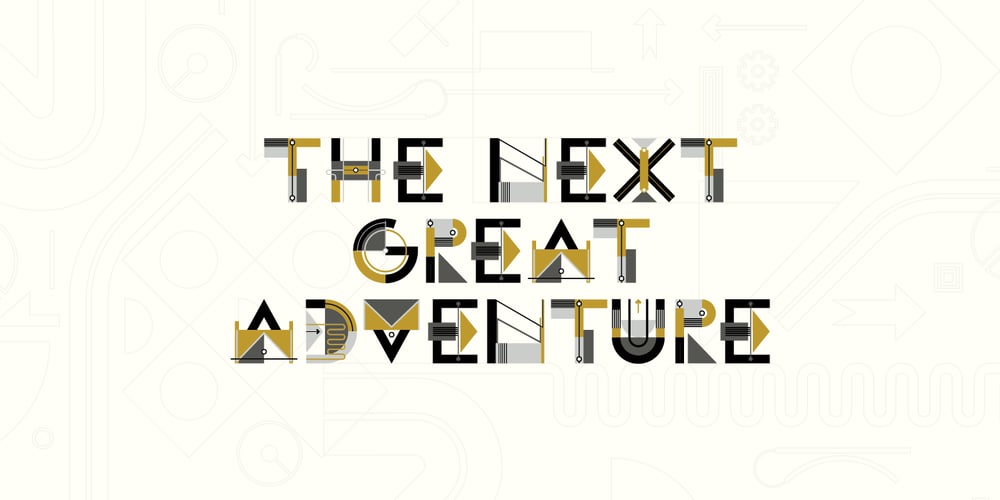
Máquina Font Family was designed by Alejandro Paul, Leandro Castelao and published by Sudtipos. Máquina contains 4 styles and family package options. A collaboration between Leandro Castelao (illustrator) and Ale Paul (type designer) for Sudtipos as part of the first project at the foundry between illustration and type design to create a collection of colorfonts. About the font: Machinery, cables, and geometry are the playground were Maquina’s been created. I imagined something intricate but at the same time clean and organized, like a controlled chaos to some extent. The result is complex but playful. Elegant with fun little details. Package: Máquina comes in 2 CMYK and 1 in RGB files with pre-defined color palettes . You can always change the colors by converting the text to outlines. Technical info to use: The package contains a normal OTF font in Black and White and 3 versions of colorfonts in SVG-TTF format. To be able to use the color files you need to have installed Adobe Photoshop CC2017 or Adobe Illustrator CC2018. Not all the browsers support color fonts so please be sure to use them as graphics.